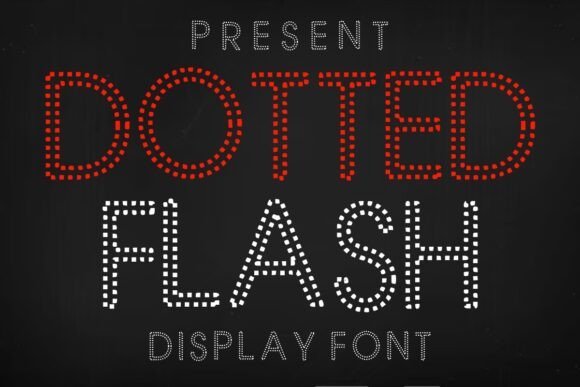
Dotted Flash Font: The Perfect Choice for Friendly and Playful Designs
In the world of typography, fonts play a crucial role in conveying the tone and personality of a brand or design. When it comes to creating a friendly and playful vibe, the Dotted Flash font is an excellent choice. This polka dot simple-decorated display font is designed to bring a touch of whimsy and approachability to any design project. In this article, we’ll explore the features and benefits of the Dotted Flash font and why it’s perfect for a variety of design applications.
What is Dotted Flash Font?
Dotted Flash is a unique and charming font that features a polka dot pattern, giving it a distinctive and eye-catching appearance. The font is designed to be easy to read, making it perfect for use in a variety of design projects, from digital designs to print materials. The Dotted Flash font is a display font, which means it’s best suited for headlines, titles, and other prominent text elements.
Key Features of Dotted Flash Font
- Polka Dot Pattern: The font features a playful polka dot pattern that adds a touch of whimsy to any design.
- Easy to Read: Despite its decorative nature, the Dotted Flash font is easy to read, making it perfect for use in a variety of design projects.
- Friendly and Approachable: The font conveys a sense of friendliness and approachability, making it perfect for brands and designs that want to appear welcoming and playful.
- Versatile: The Dotted Flash font can be used in a variety of design applications, from digital designs to print materials.
Perfect for Games and Digital Designs
The Dotted Flash font is particularly well-suited for use in games and digital designs. The font’s playful and whimsical nature makes it perfect for use in game titles, character names, and other UI elements. Additionally, the font’s easy-to-read design makes it perfect for use in digital designs, such as website headers, social media graphics, and more.
Crafts, Presentations, and Greeting Cards
The Dotted Flash font is not just limited to digital designs. It’s also perfect for use in crafts, presentations, and greeting cards. The font’s friendly and approachable nature makes it perfect for use in handmade crafts, such as scrapbooking and card making. Additionally, the font’s playful design makes it perfect for use in presentations and greeting cards, adding a touch of whimsy and personality to any project.
Why Choose Dotted Flash Font?
So why choose the Dotted Flash font for your design projects? Here are just a few reasons:
- Unique and Eye-Catching: The font’s polka dot pattern makes it stand out from more traditional fonts.
- Easy to Read: The font’s easy-to-read design makes it perfect for use in a variety of design projects.
- Versatile: The font can be used in a variety of design applications, from digital designs to print materials.
- Conveys Friendliness and Approachability: The font’s friendly and approachable nature makes it perfect for brands and designs that want to appear welcoming and playful.
Tips for Using Dotted Flash Font
Here are a few tips for using the Dotted Flash font in your design projects:
- Use it as a Headline Font: The Dotted Flash font is perfect for use as a headline font, adding a touch of whimsy and personality to any design.
- Pair it with a Simple Font: Pair the Dotted Flash font with a simple font, such as Arial or Helvetica, to create a striking contrast.
- Experiment with Colors: The Dotted Flash font looks great in a variety of colors, so don’t be afraid to experiment and find the perfect color scheme for your design.
In conclusion, the Dotted Flash font is a unique and charming font that’s perfect for designers who want to add a touch of whimsy and friendliness to their designs. With its polka dot pattern, easy-to-read design, and versatile nature, this font is perfect for use in a variety of design applications, from digital designs to print materials. Whether you’re designing a game, crafting a handmade project, or creating a presentation, the Dotted Flash font is sure to become your go-to font.